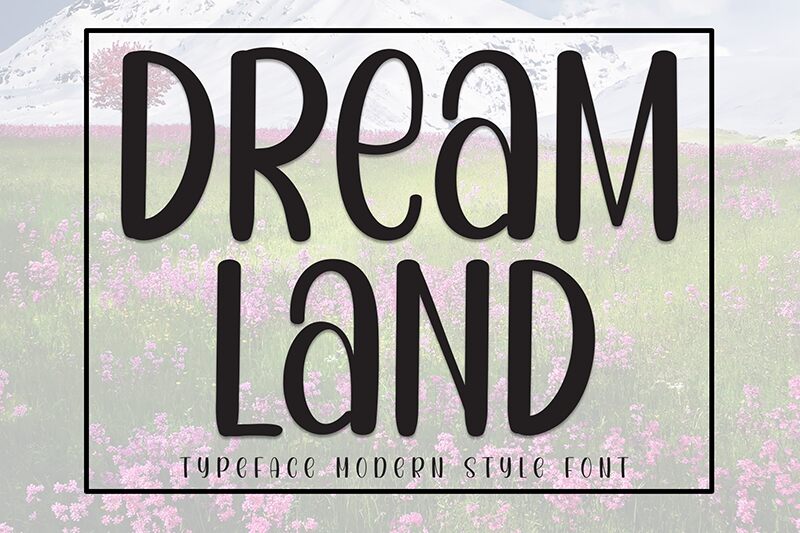
Dream Land
Dream Land font is a free handwritten font that expresses a round, organic, and whimsical aesthetic with its artistic flair. The condensed font presents a slightly irregular rhythm for its letters that grants the design an unusual element without instantly popping up for the viewer. Made by Andi Moz, the font has a vibrant hand-drawn feel artists will cherish.
Combining simplicity and elegance, this modern display typeface works great for headings, poster designs, product labels, invitations, greeting cards or typo quotes to be shared on Illustrator. Social media posts are made easier and so are ads since Dream Land can fit in both classic print designs as well as website branding projects.